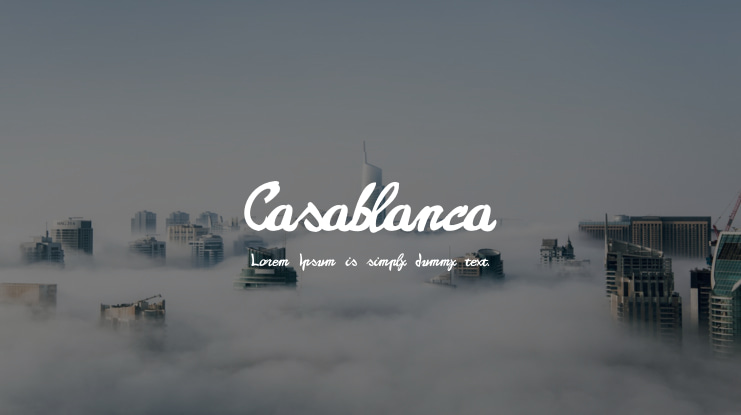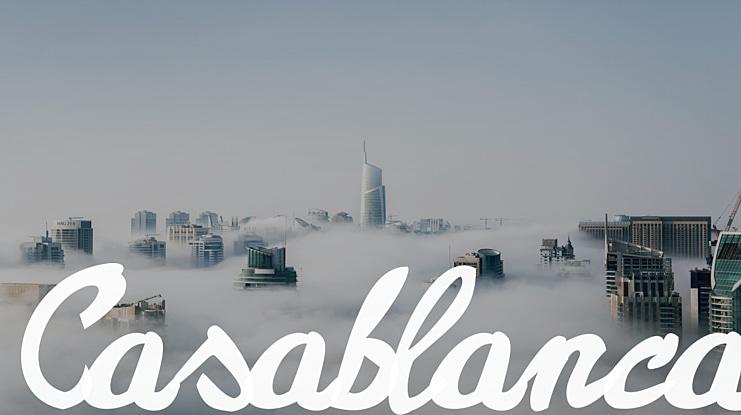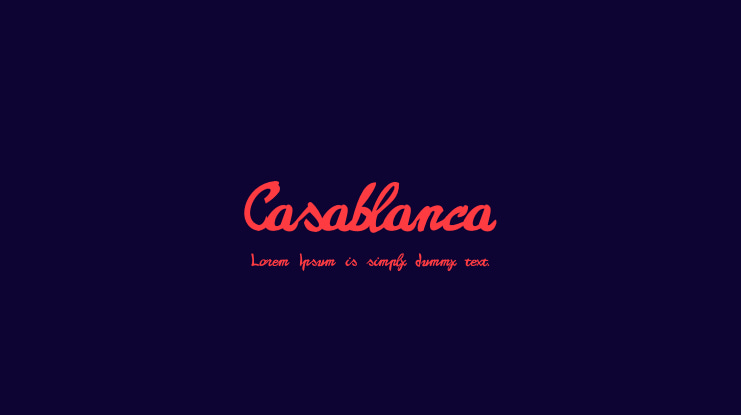
Casablanca Font
P. A. Vannucci
directly from the Best movie by Michael Curtiz, with INGRID BERGMAN and HUMPHREY BOGART, the original font for all lovers.
direttamente dal film diretto da Michael Curtiz, interpretato da una indimenticabile Ingrid Bergman e da HUMPHREY BOGART,il font inedito per tutti gli estimatori del film.